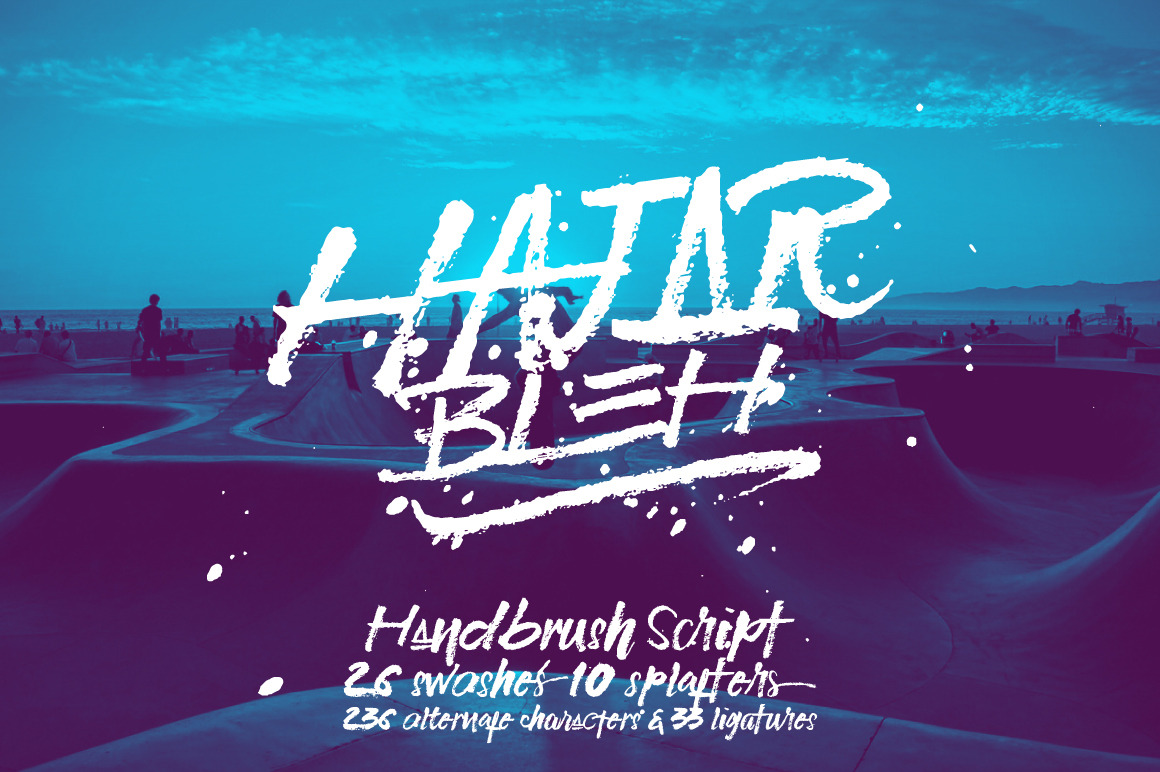
HajarBleh Brush Font
Hajar Bleh a handmade font with unique style would be awesome for your design projects. It could be fitted for logos, quotes, t-shirts, posters or anything. Available in uppercase, lowercase, numerals and punctuations.